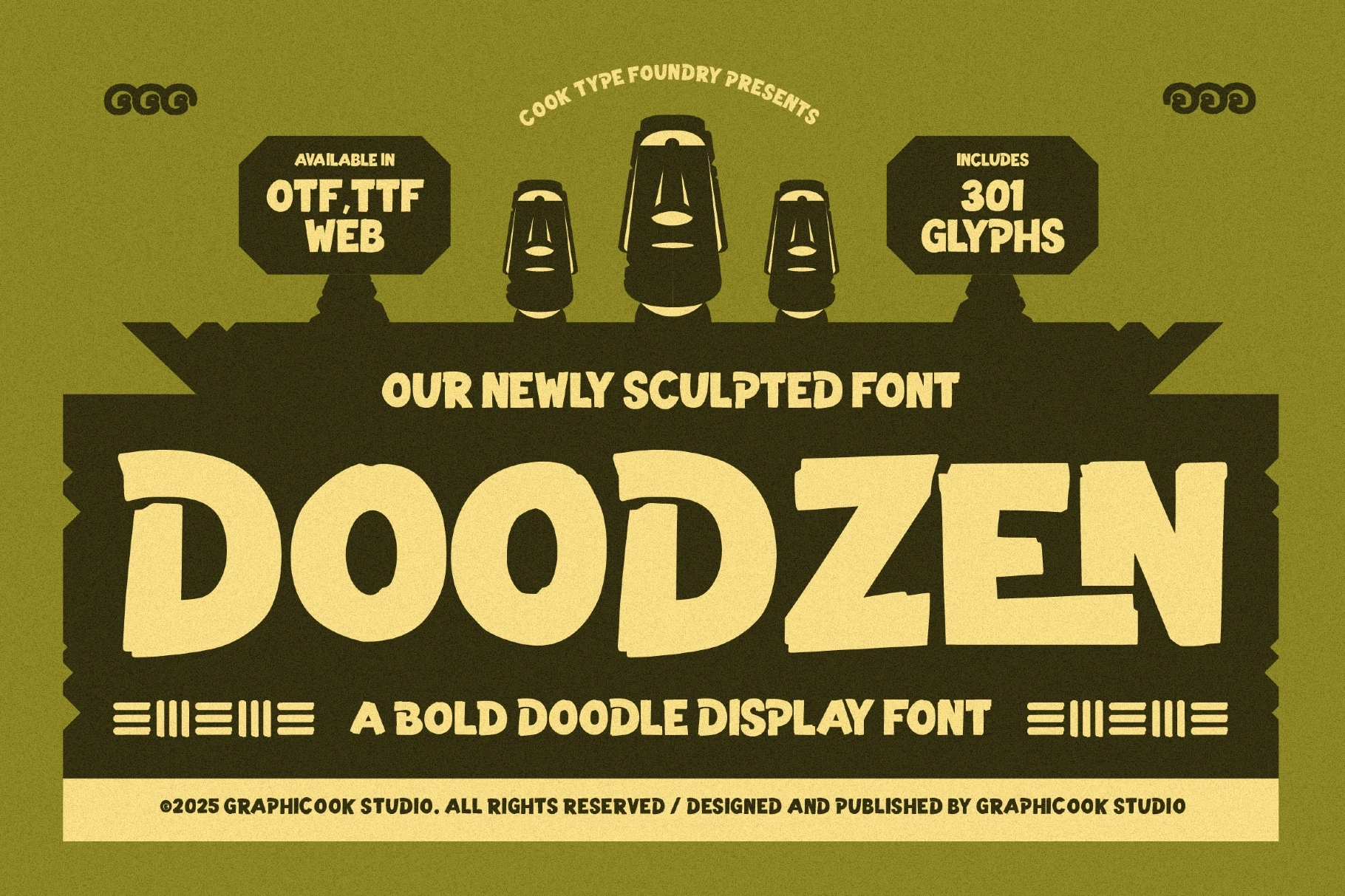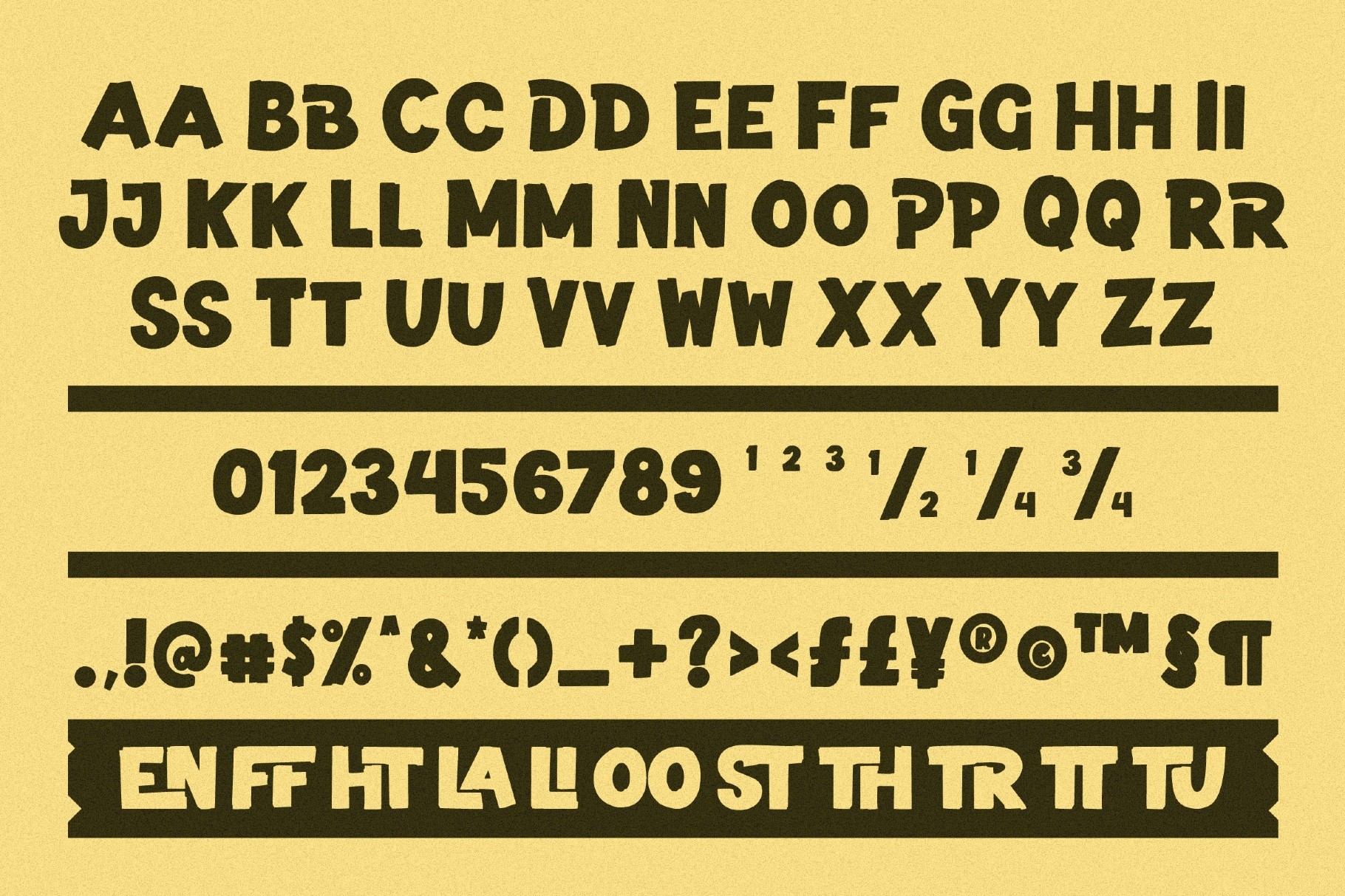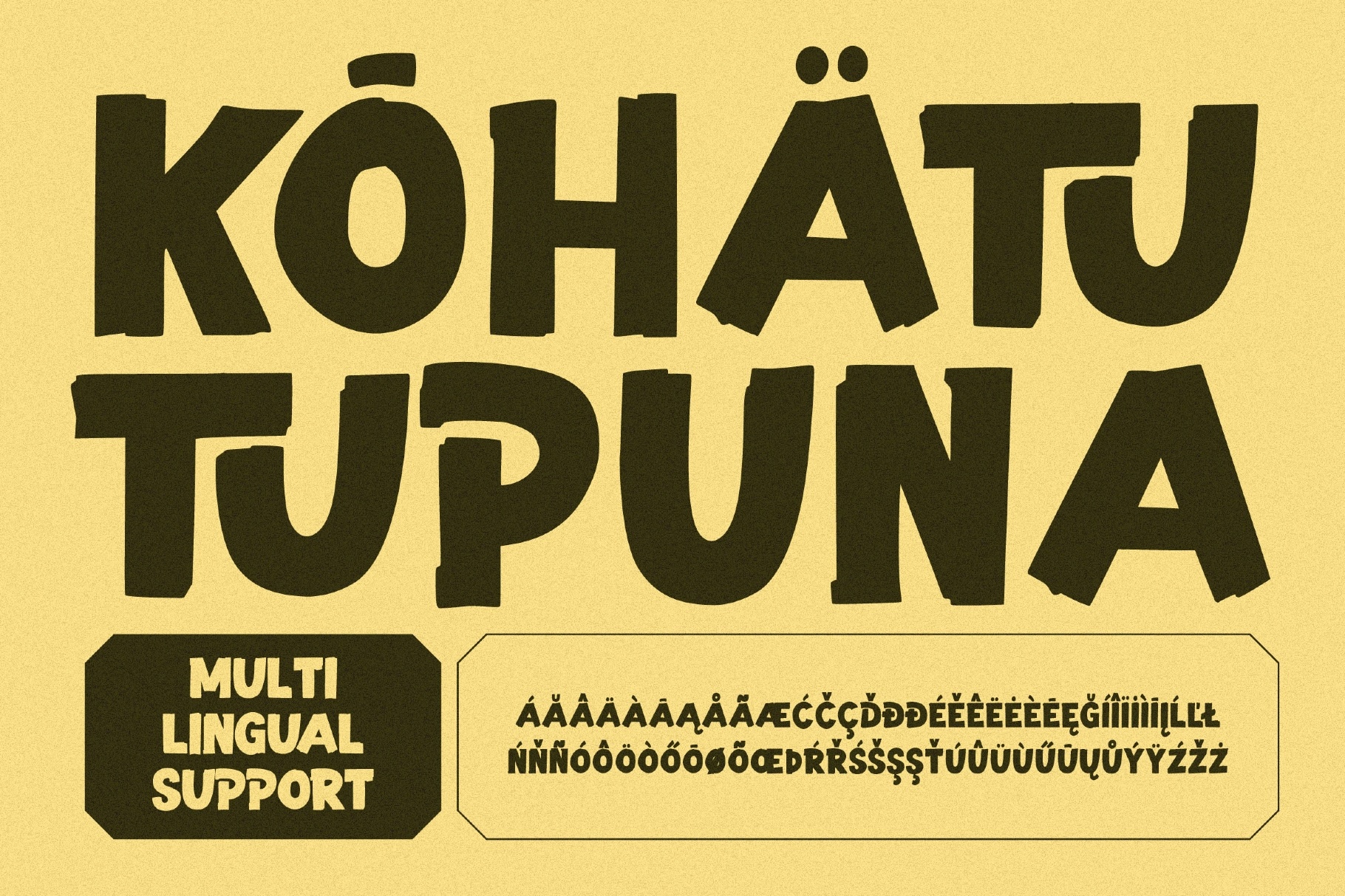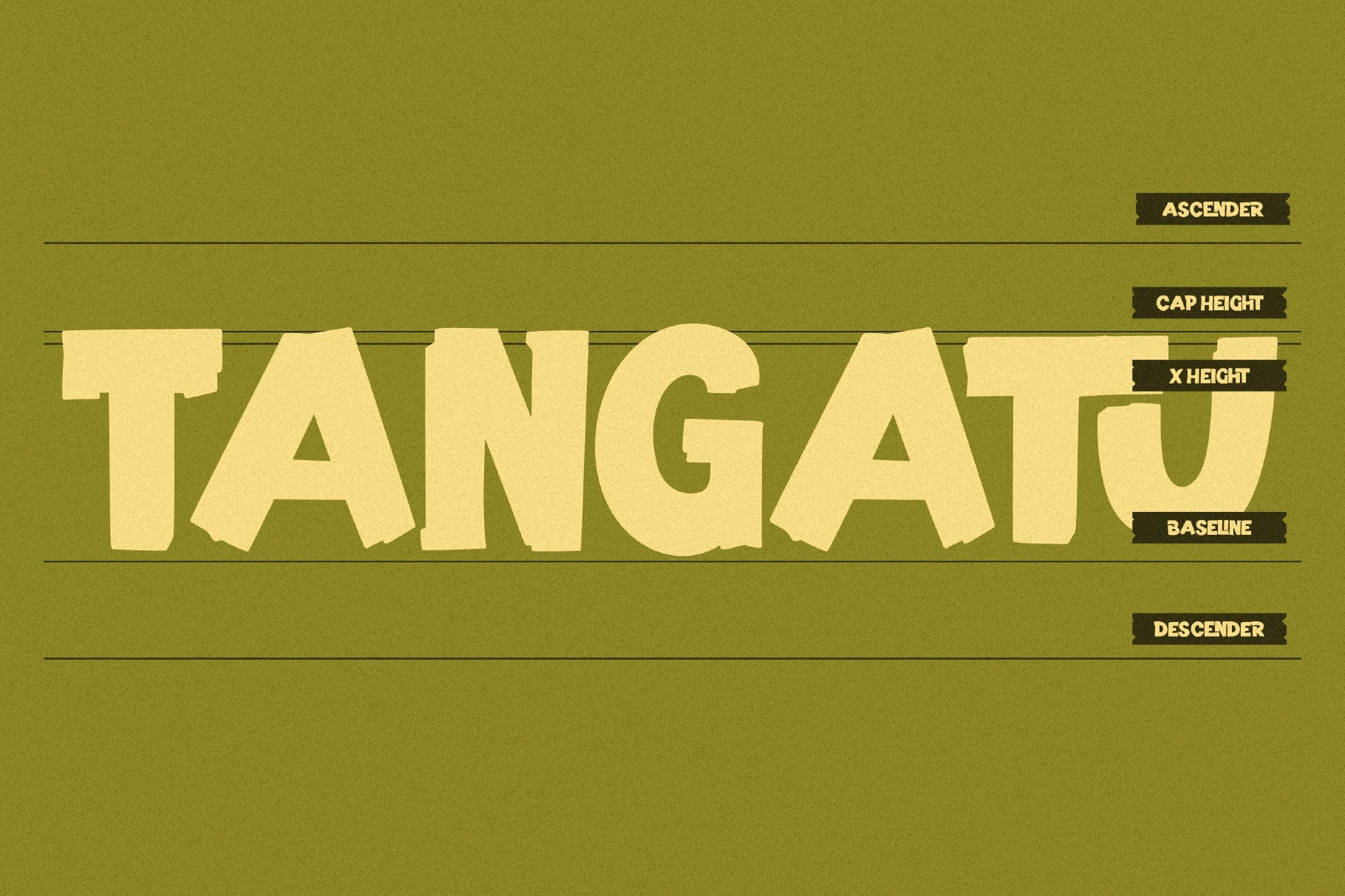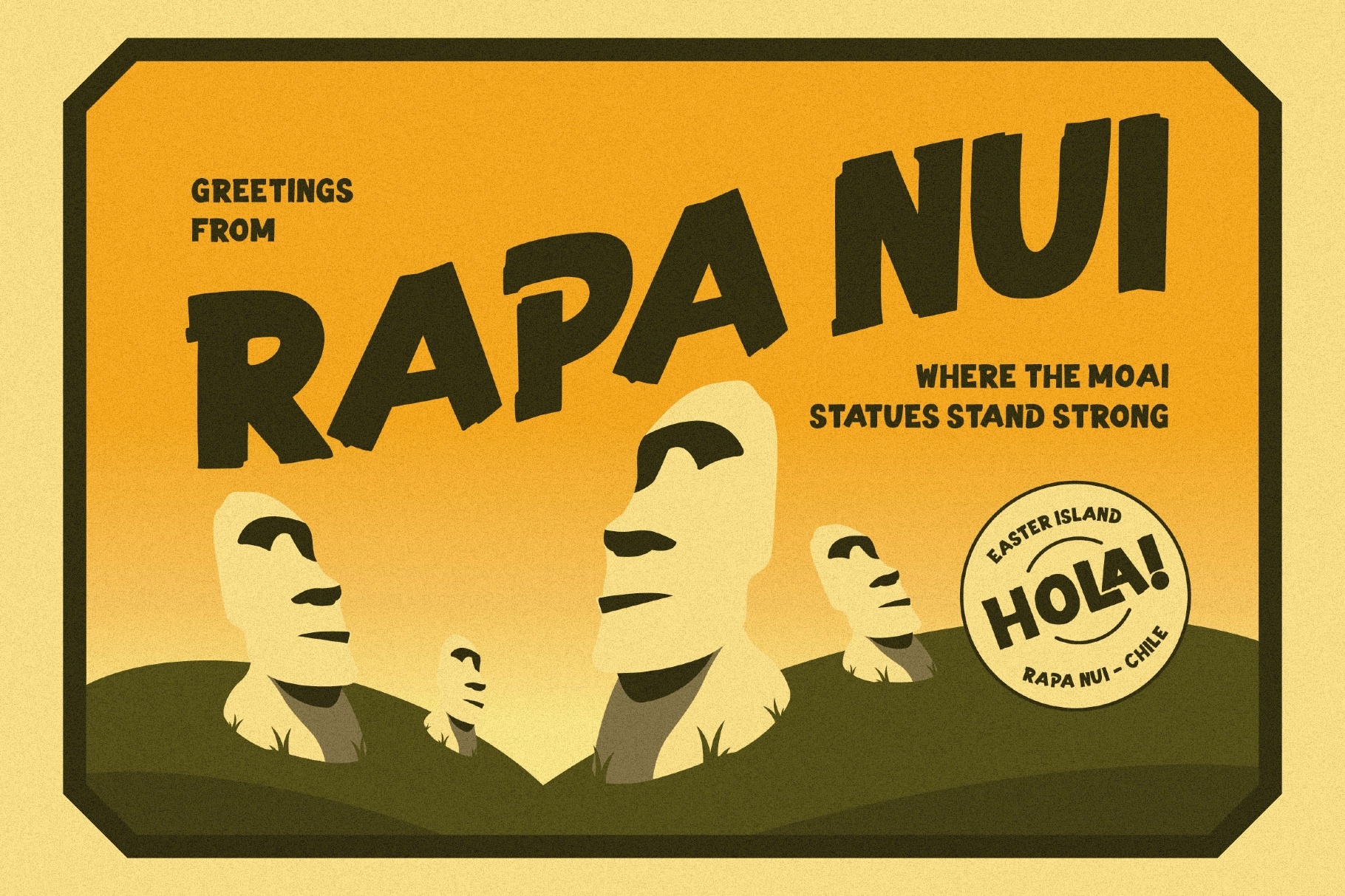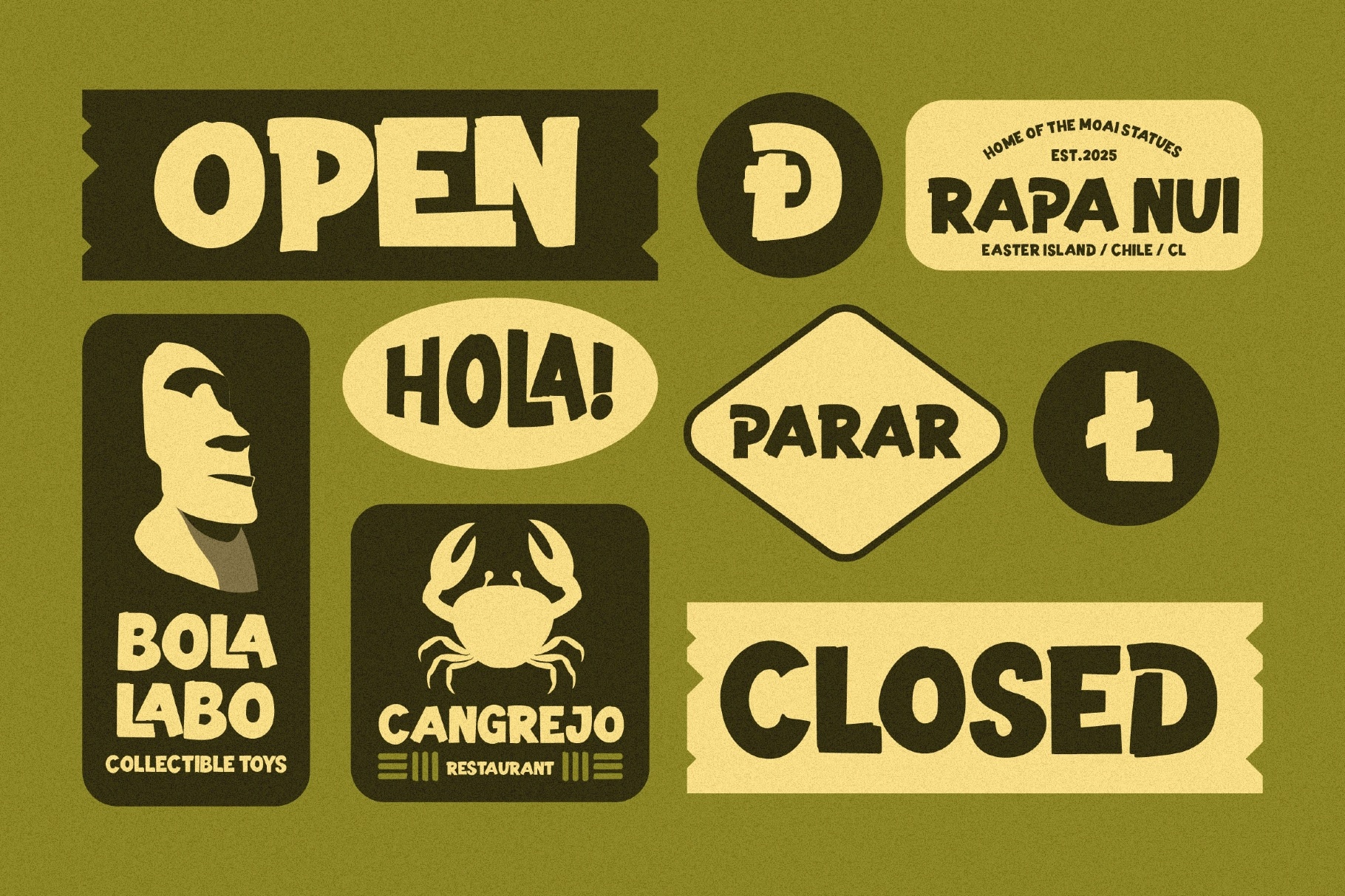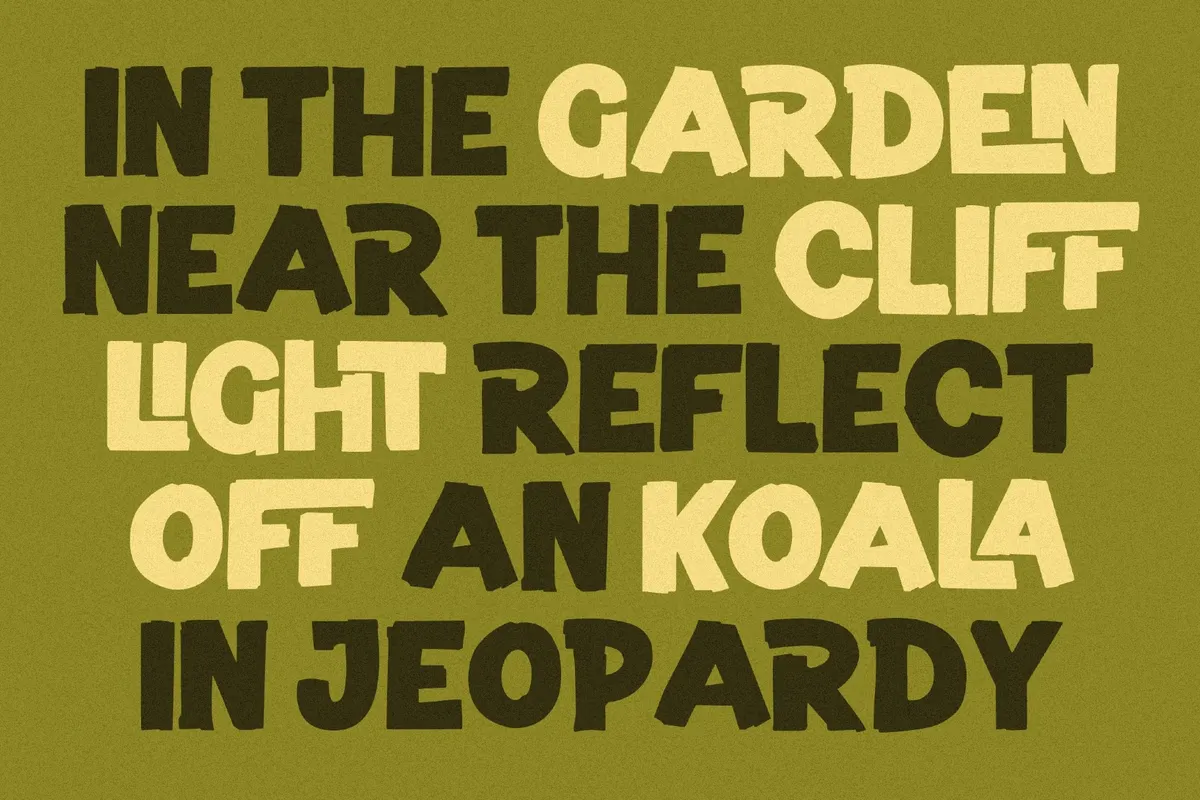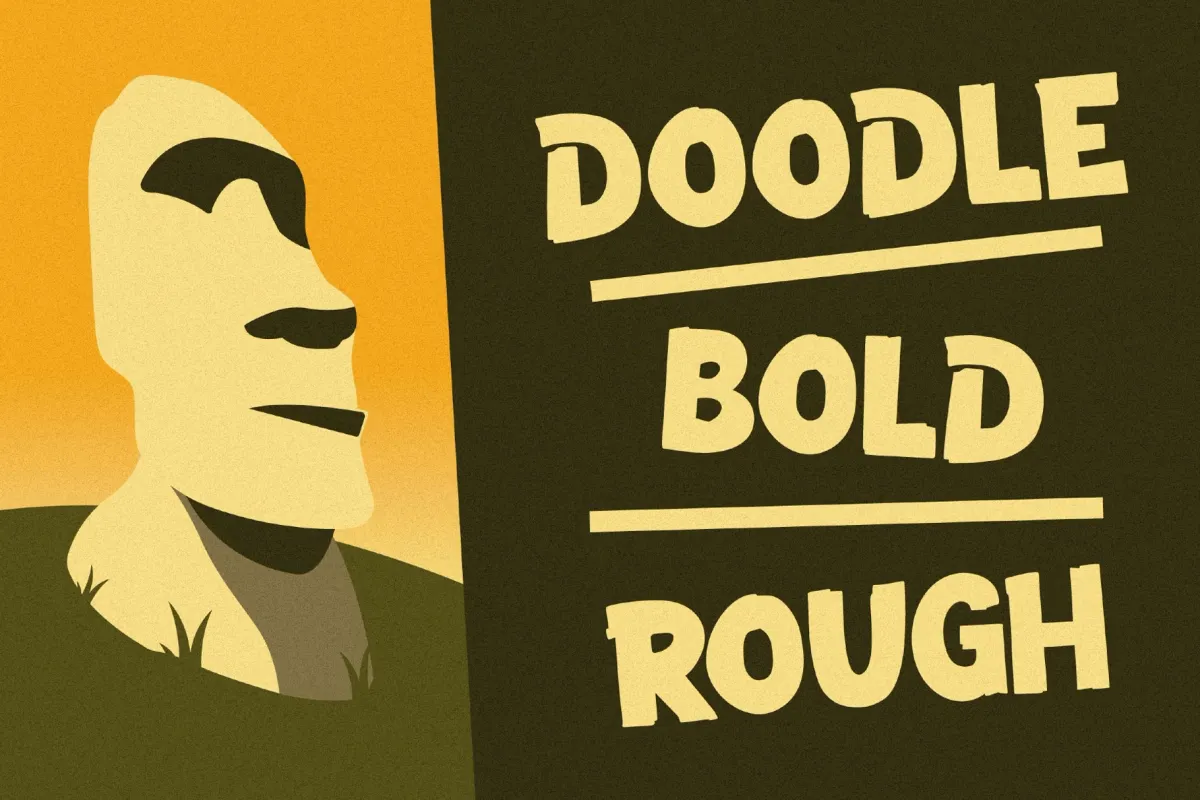
Doodzen Font
Doodzen
Doodzen is a bold, hand-carved display font inspired by traditional carvings and sculptural forms. Its organic, irregular shapes create a raw, tactile look—perfect for tribal, folklore, cultural, or thematic designs that need an authentic handcrafted feel.